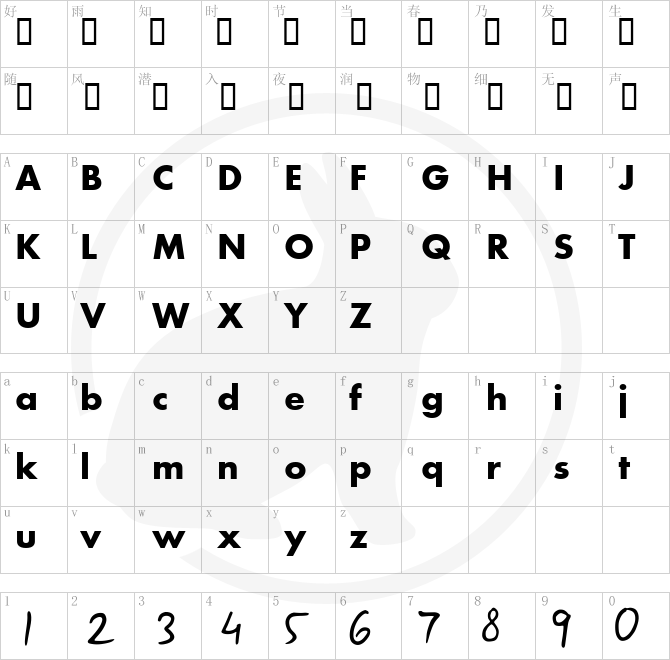
- Font Name:yakov narrow
yakov-narrow.ttf is a very beautiful artistic font, yakov-narrow.ttf is widely used in the design and printing of various books and pictures,yakov-narrow.ttf has a strong visual impact,yakov-narrow.ttf is a commonly used font in newspapers, magazines and books, and is used in posters, e-commerce Poster design, store design, logo design, font design and other fields.yakov-narrow.